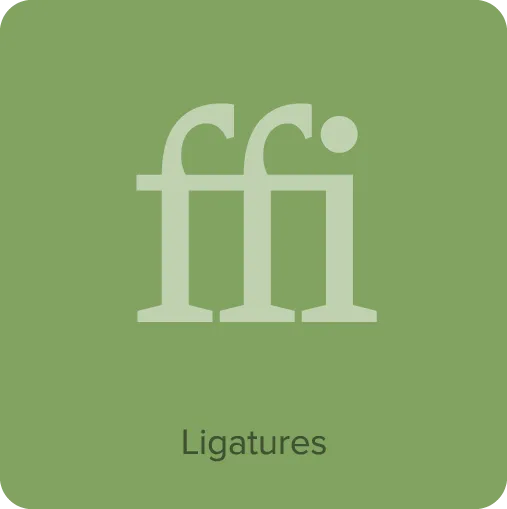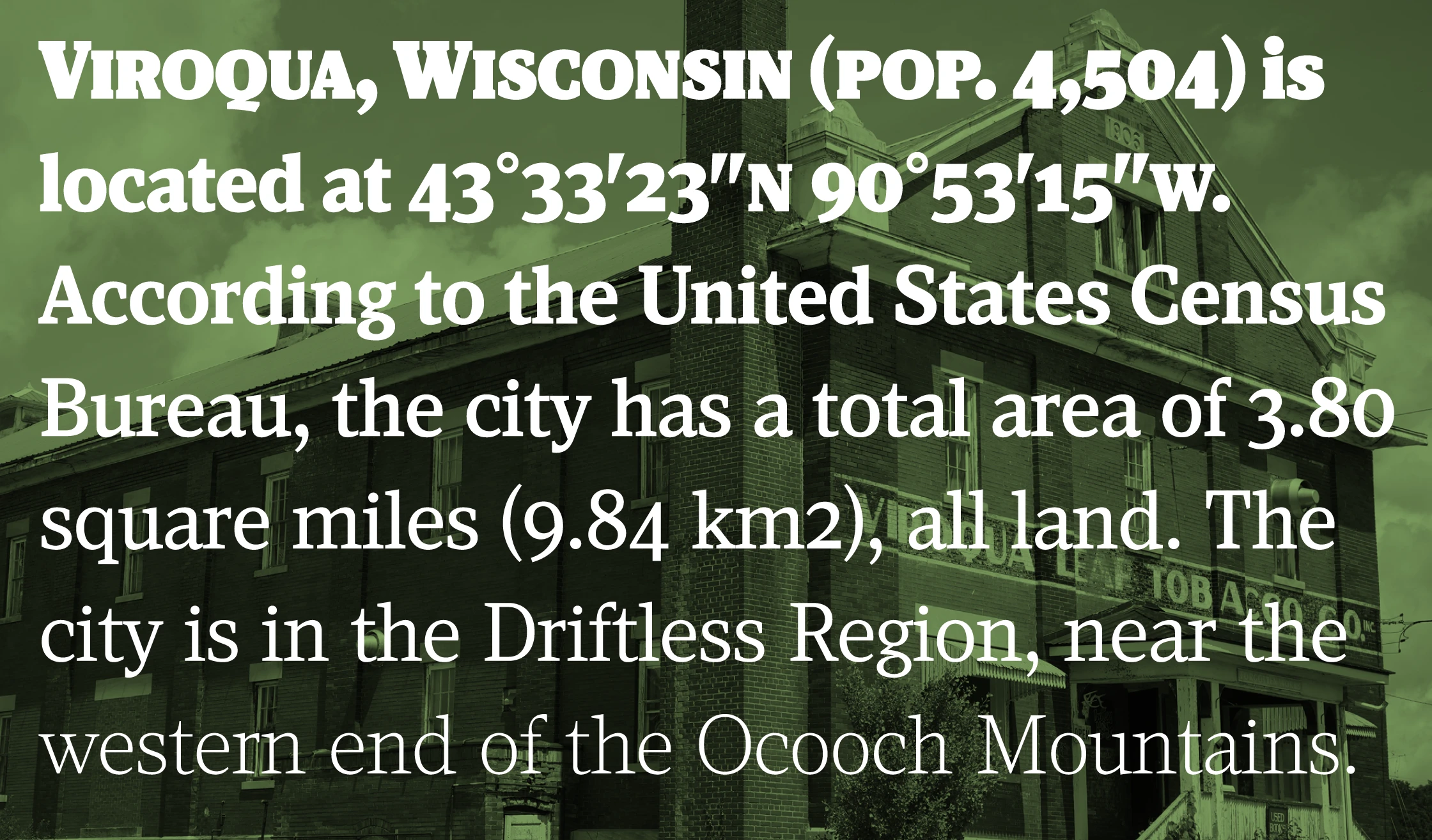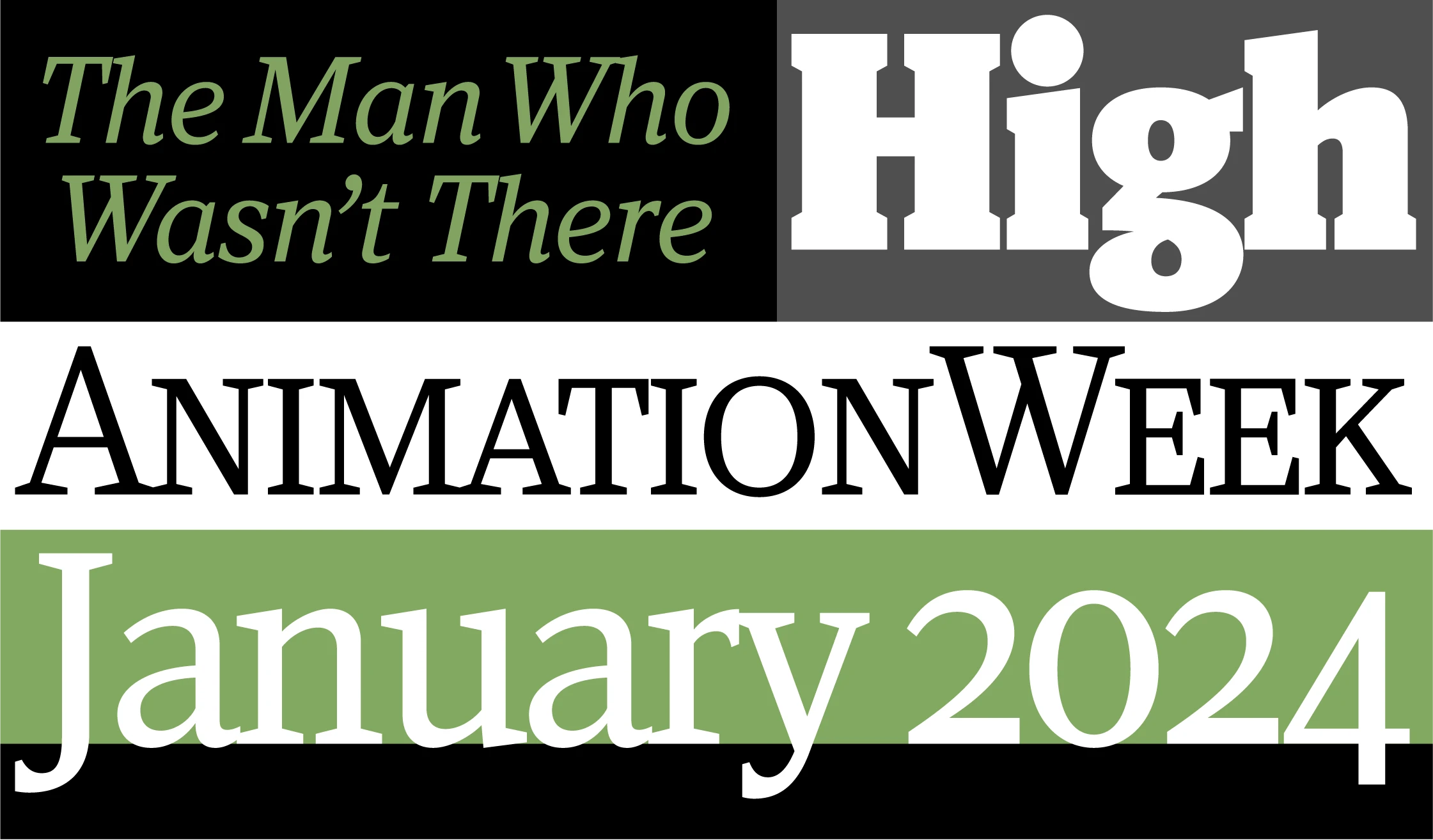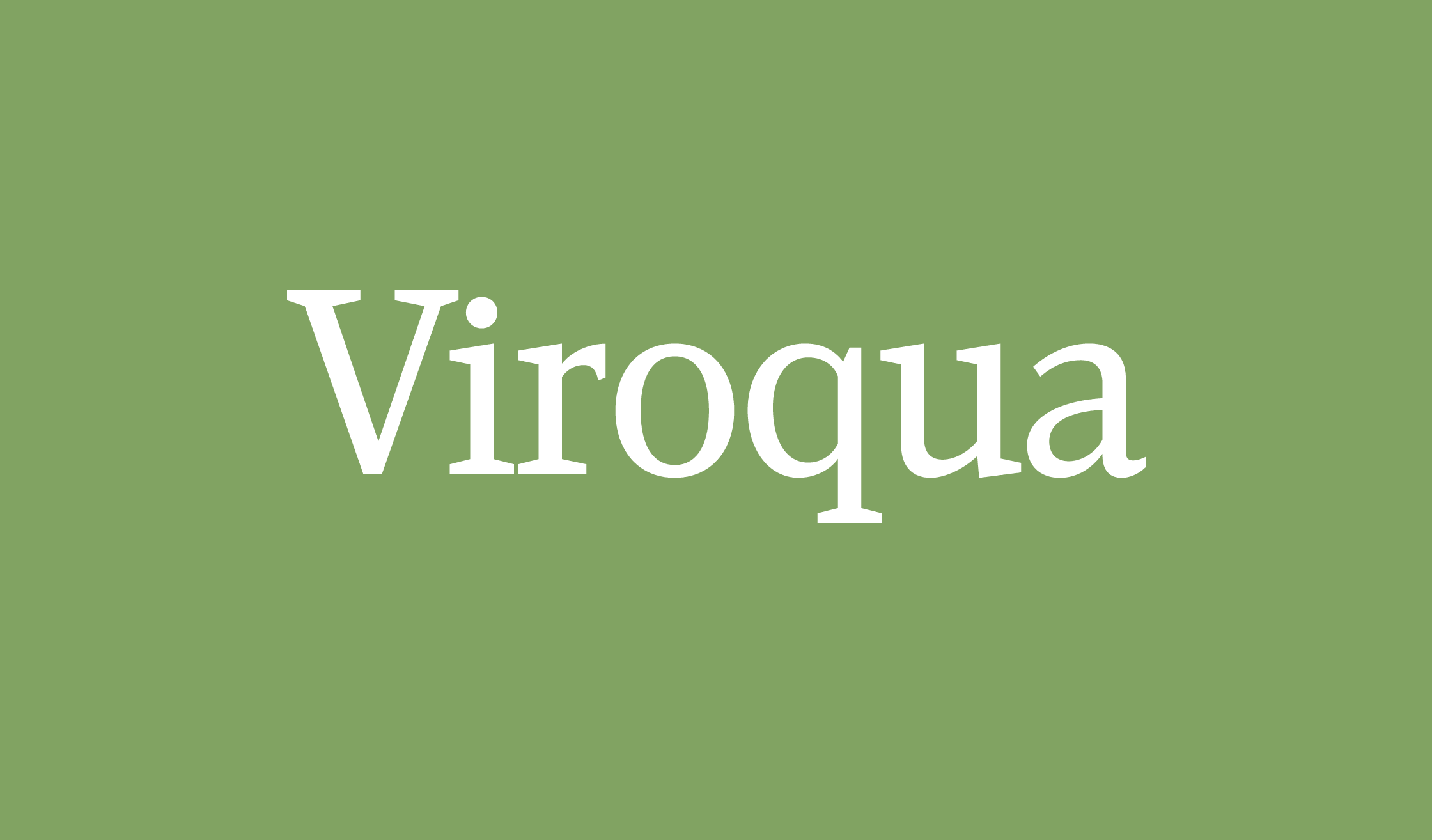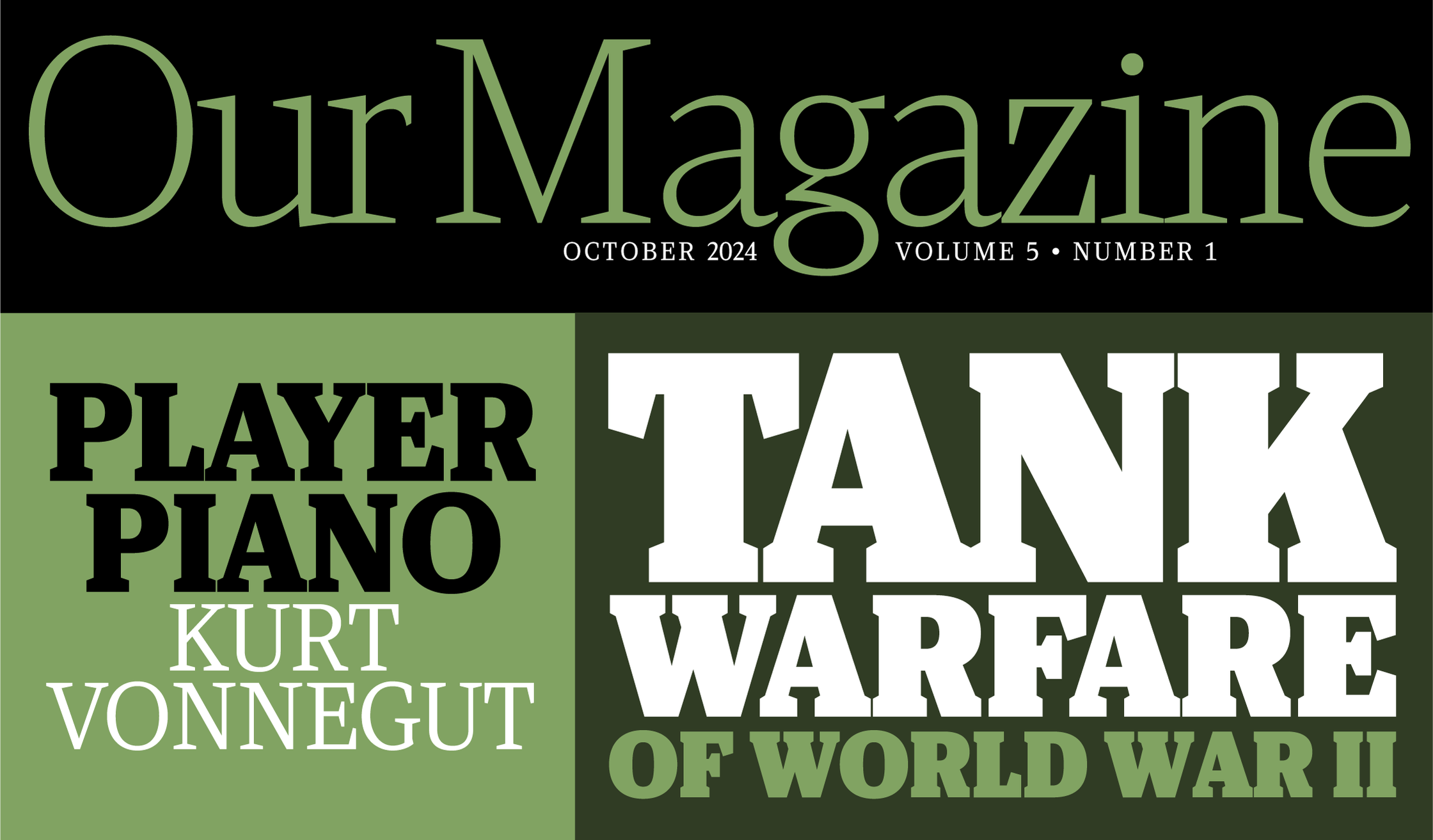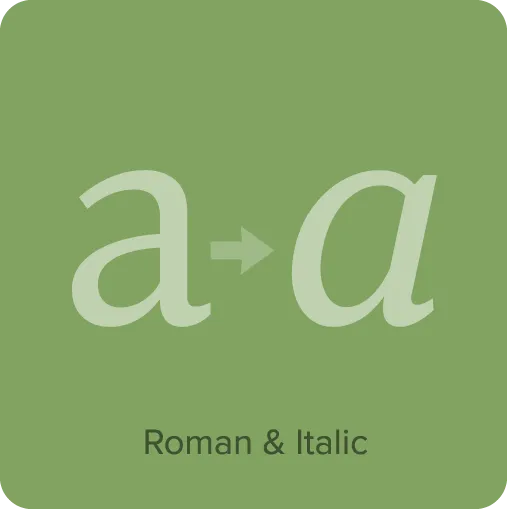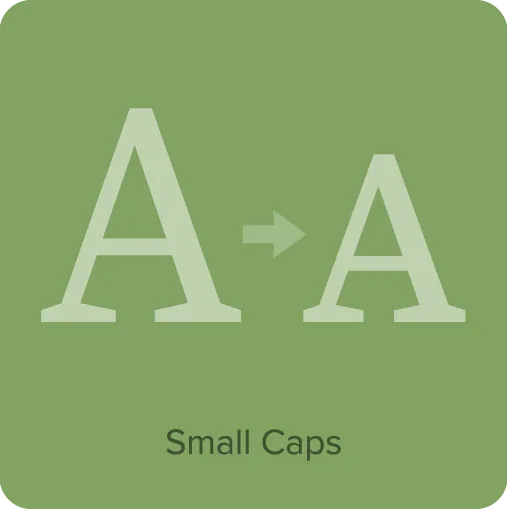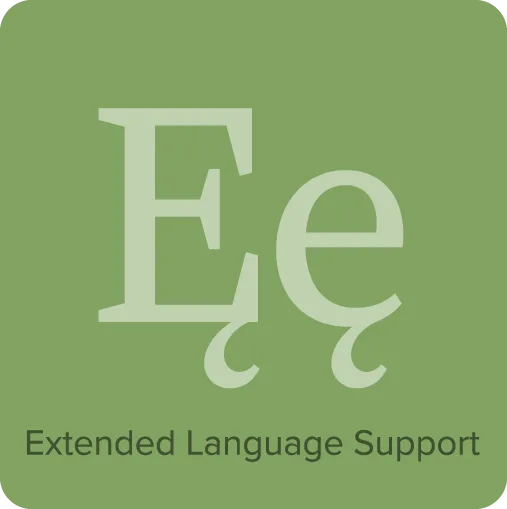
Viroqua is a redesign of Kandal (1994), one of my first typefaces, after 30 years more practice at type design. It’s a hybrid, combining old style details with modern proportions. It has fairly low contrast, with wedge-shaped slab serifs. Viroqua is very comfortable to read in text, and the boldest weights provide a lot of impact at display sizes. Viroqua features small caps, old style and lining figures (both proportional and tabular), superscript and subscript figures, fractions, and dingbats.
Viroqua Features
- 7 weights: Thin, Light, Regular, Semibold, Bold, Extrabold, and Black.
- Matching italics for all weights and widths.
- Extended language support for most Latin-based Western and Central European languages and Vietnamese.
- Small caps for all styles.*
- Full “f” ligature set (ff, fi, fl, ffi, ffl, etc.).*